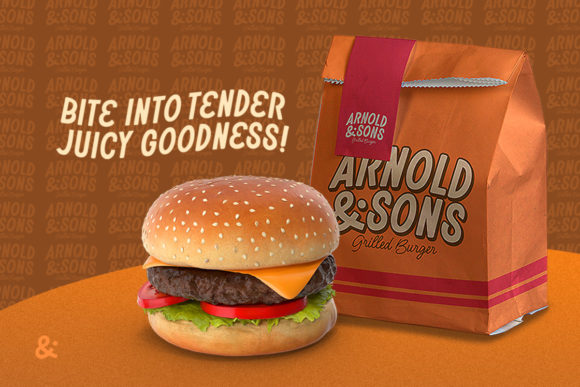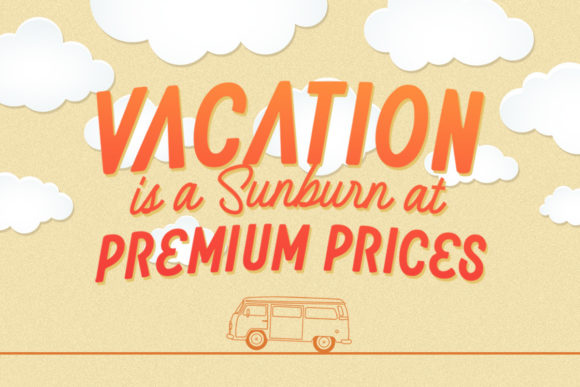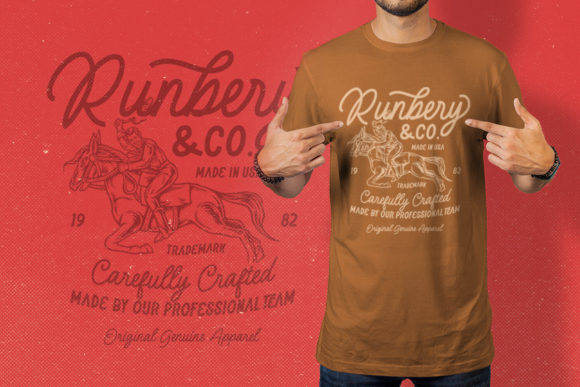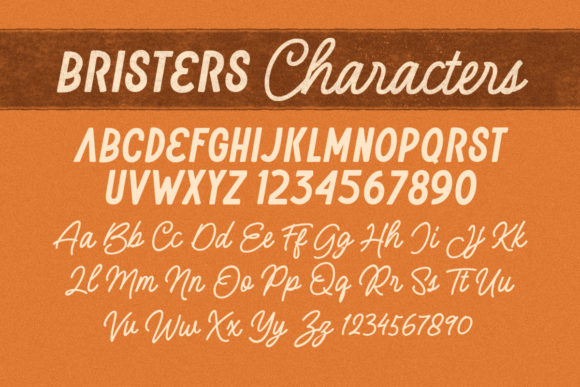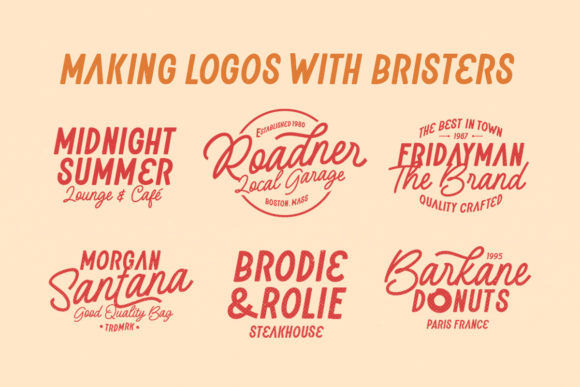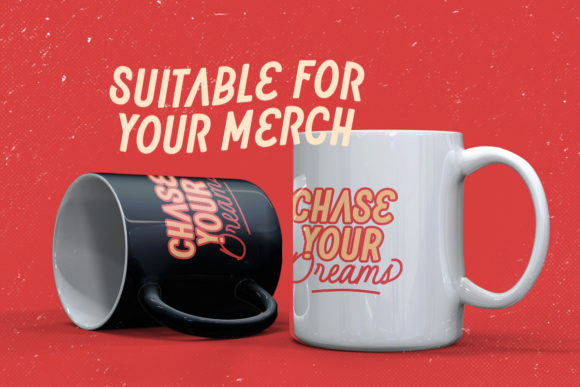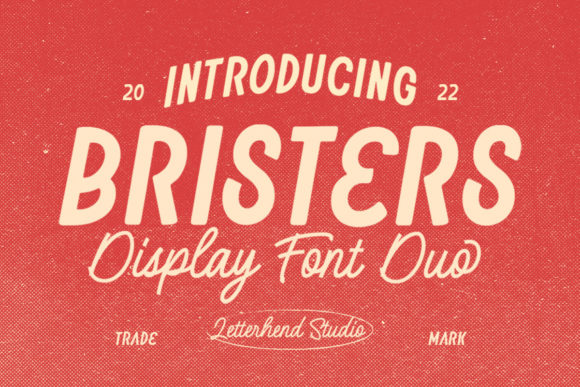
Introducing Brister Font: Elevate Your Designs with a Vintage Twist
Are you on the hunt for a font that adds a touch of nostalgia and sophistication to your projects? Look no further than Brister Font, a stunning duo font that combines the elegance of script with the clarity of sans serif. This versatile font is perfect for designers and crafters seeking to infuse their work with a branded, retro feel.
The Brister Font Duo: Script and Sans Serif Perfection
Brister Font is not just a single font, but a comprehensive duo that includes both a beautiful script font and a clean sans serif font. This dynamic duo is designed to work harmoniously together, allowing you to create visually stunning projects that exude a sense of vintage charm. However, each font is also perfectly suited to stand alone, making them ideal for a wide range of applications.
Key Features of Brister Font
• Vintage Inspiration: Brister Font draws inspiration from classic typography, making it perfect for projects that require a retro aesthetic.
• Duo Font: Includes both a script and sans serif font, allowing for endless creative possibilities.
• Highly Versatile: Suitable for a wide range of projects, from branding and advertising to packaging and digital media.
• Elegant and Sophisticated: Adds a touch of sophistication and elegance to any project.
Uses for Brister Font
Brister Font is incredibly versatile and can be used in a variety of projects, including:
• Branding and Identity: Create a lasting impression with a custom logo or brand identity that incorporates Brister Font.
• Advertising and Marketing: Add a touch of nostalgia and sophistication to your advertising and marketing materials.
• Packaging: Elevate your packaging designs with a font that exudes elegance and refinement.
• Digital Media: Use Brister Font in your digital projects, such as social media graphics, blog posts, and website designs.
• Crafting and DIY: Perfect for crafters and DIY enthusiasts looking to add a personal touch to their projects.
Tips for Using Brister Font
To get the most out of Brister Font, here are a few tips to keep in mind:
• Mix and Match: Combine the script and sans serif fonts to create visually interesting and dynamic designs.
• Experiment with Colors: Try pairing Brister Font with a range of colors to find the perfect combination for your project.
• Play with Texture: Add texture and depth to your designs by incorporating Brister Font into a textured or patterned background.
• Keep it Simple: Don’t be afraid to use Brister Font on its own – sometimes, simplicity is the most effective way to make a statement.
Brister Font is a versatile and elegant duo font that’s perfect for designers and crafters looking to add a touch of vintage charm to their projects. With its comprehensive script and sans serif fonts, Brister Font is sure to become a staple in your design toolkit. So why wait? Download Brister Font today and start elevating your designs with a retro twist!